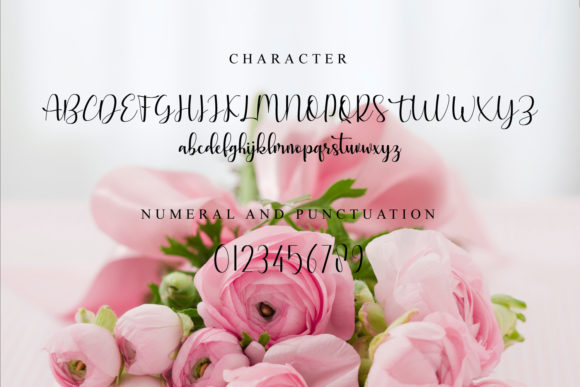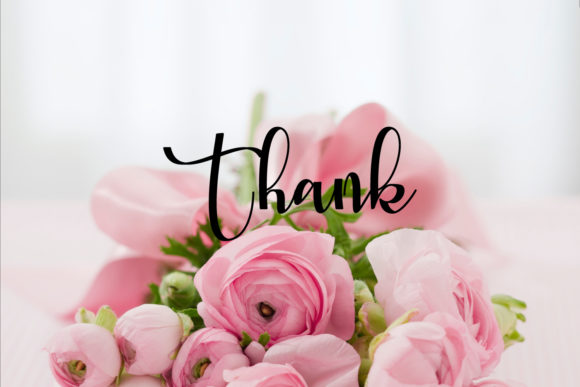
Haredeang Font: Elevate Your Designs with Elegant Charm
Are you searching for a font that exudes elegance, sophistication, and a touch of classic charm? Look no further than the stunning Haredeang Font. This beautiful script font is a stylish homage to traditional calligraphy, making it perfect for designers and crafters looking to add a touch of luxury to their projects.
The Charm of Haredeang Font
Haredeang Font feels equally charming and elegant, making it an excellent choice for a wide range of design applications. Its authentic feel and classic style evoke a sense of nostalgia, while its modern twist ensures it remains fresh and relevant. Whether you’re creating wedding invitations, social media posts, or greeting cards, Haredeang Font is sure to impress.
Perfect for Wedding Invitations and Stationery
One of the most popular uses for Haredeang Font is in wedding invitations and stationery. Its elegant and sophisticated style makes it perfect for formal wedding announcements, save-the-date cards, and thank-you notes. The font’s classic charm also lends itself well to other types of stationery, such as letterheads, journals, and planners.
With Haredeang Font, you can create beautiful and unique wedding invitations that set the tone for your special day. Its authentic feel and stylish design ensure that your invitations will stand out from the crowd, making a lasting impression on your guests.
Eye-Catching Social Media Posts
In today’s digital age, social media is an essential platform for businesses, designers, and crafters to showcase their work. Haredeang Font is an excellent choice for creating eye-catching social media posts that grab attention and leave a lasting impression. Its elegant and sophisticated style makes it perfect for promoting products, services, or events, while its classic charm ensures that your posts will remain timeless.
Whether you’re a fashion brand, a wedding planner, or a lifestyle influencer, Haredeang Font can help you elevate your social media presence and create a cohesive brand identity.
Cute Greeting Cards and More
Haredeang Font is not just limited to formal designs; it’s also perfect for creating cute and playful greeting cards for special occasions. Its elegant and charming style makes it suitable for birthday cards, holiday greetings, and thank-you notes.
In addition to greeting cards, Haredeang Font can be used for a wide range of design projects, including:
- Wedding decorations and signage
- Party invitations and flyers
- Digital art and illustrations
Why Choose Haredeang Font?
So, why choose Haredeang Font for your design projects? Here are just a few reasons:
- Elegant and sophisticated style: Haredeang Font exudes classic charm and elegance, making it perfect for formal and informal designs.
- Authentic feel: The font’s authentic feel ensures that your designs will have a timeless and nostalgic quality.
- Versatile: Haredeang Font can be used for a wide range of design applications, from wedding invitations to social media posts.
- Easy to read: The font’s clear and legible design ensures that your text will be easy to read, even at small sizes.
Get Creative with Haredeang Font
If you’re looking for a font that will elevate your designs and add a touch of elegance and charm, look no further than Haredeang Font. With its stunning script design and authentic feel, this font is sure to become a favorite in your design arsenal.
So, get creative with Haredeang Font and see the amazing things you can create. Whether you’re a designer, crafter, or DIY enthusiast, this font is sure to inspire you to create something beautiful and unique.